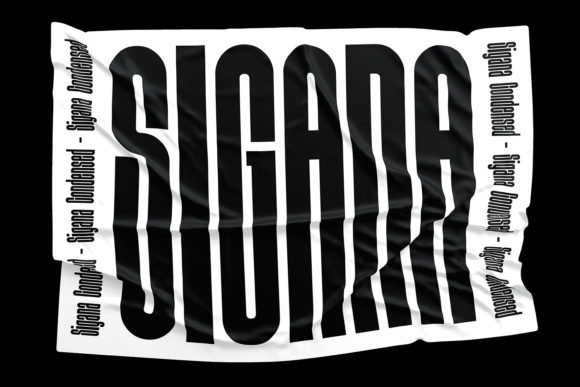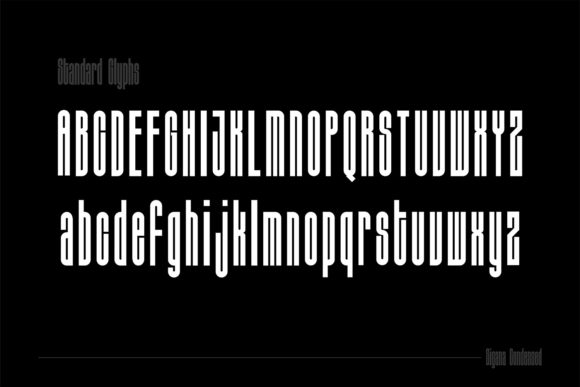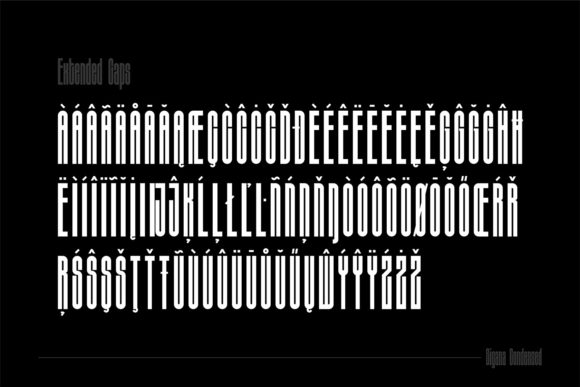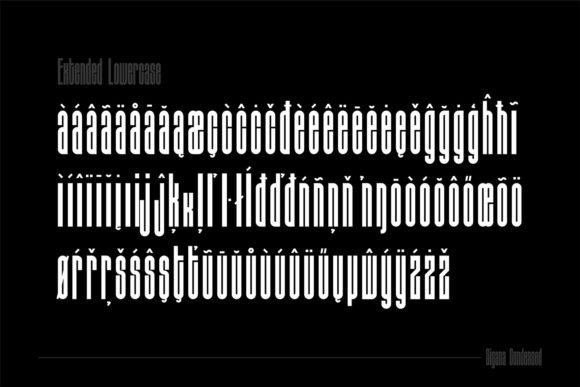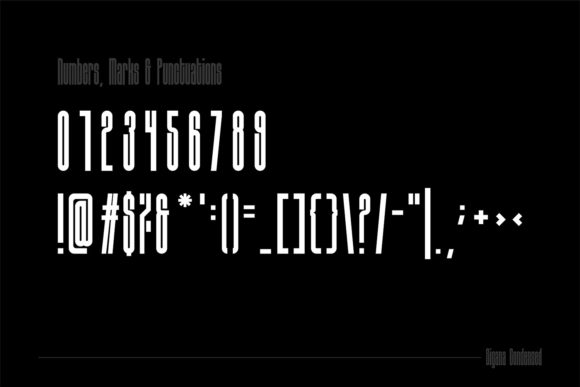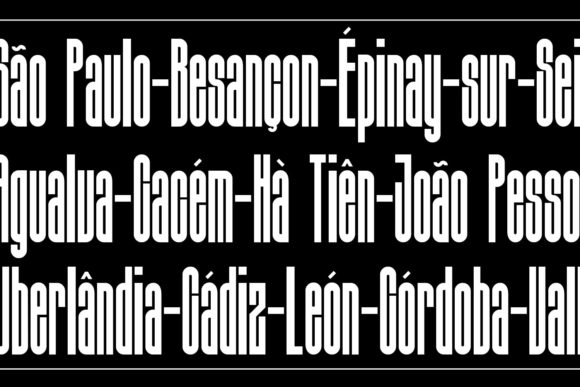
Introduction to Sigana Font
Sigana is a modern, tall, condensed display font, that fits perfectly into anything that is casual or cool.
Its attractive charm makes it look very down to earth, easy to read, and versatile .
Key Features of Sigana Font
Why Choose Sigana Font?